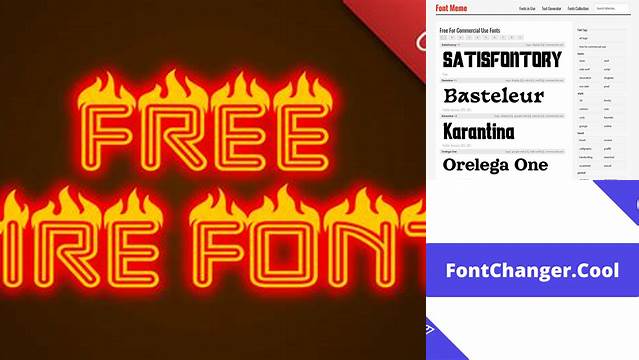
Online Font Changer For Free Fire: Cool Styles!
Hey guys! Want to make your Free Fire name stand out? Of course, you do! That's where online font changers for Free Fire come in super handy. They let you create all sorts of cool and unique styles for your in-game name, making you look like a total pro. Letβs dive into how you can jazz up your Free Fire profile with some awesome fonts!
What is an Online Font Changer?
An online font changer is basically a tool that allows you to convert regular text into a variety of different fonts and styles. These tools use special Unicode characters to create these unique looks, which can then be copied and pasted into various applications, including Free Fire. The best part? Most of these tools are super easy to use and require no special software or technical skills. Just type in your name, pick a font you like, and copy the result. Seriously, it's that simple!
Why Use a Font Changer for Free Fire?
Standing Out from the Crowd
In a game like Free Fire, where everyone is trying to make a name for themselves, having a unique username can really help you stand out. Using a font changer lets you create a name that is visually appealing and memorable. Think about it: when you eliminate an opponent with a funky font, they're more likely to remember you!
Personalizing Your Profile
Online font changers for Free Fire aren't just about looking cool; they're also about expressing your personality. By choosing a font that resonates with you, you can add a personal touch to your in-game profile. Whether you prefer something bold and aggressive or something sleek and stylish, the options are endless.
Creating a Unique Identity
Your Free Fire name is a part of your identity in the game. It's how other players recognize you, and it's how you build your reputation. Using a font changer gives you the opportunity to craft a unique identity that sets you apart from the competition. Who knows, maybe you'll even become known as the player with the coolest name!
How to Use an Online Font Changer for Free Fire
Step-by-Step Guide
Using an online font changer for Free Fire is a breeze. Hereβs a step-by-step guide to get you started:
- Find a Reliable Font Changer: There are tons of font changer websites out there. Just do a quick search on Google for "Free Fire font changer" and pick one that looks trustworthy and easy to use.
- Type Your Name: Once you're on the website, you'll see a text box where you can type your desired Free Fire name.
- Choose Your Font: The website will then generate a bunch of different font options for your name. Scroll through the options and pick the one that you like the best.
- Copy and Paste: Once you've found the perfect font, simply copy the text.
- Paste into Free Fire: Open Free Fire, go to your profile settings, and paste the new font into your name field. Save the changes, and boom! You've got a brand-new, stylish name.
- Consider Readability: While it's tempting to go for the most outrageous font, make sure it's still easy to read. If other players can't figure out your name, what's the point?
- Think About Your Style: Choose a font that reflects your personality and play style. Are you a fierce warrior or a cool strategist? Pick a font that matches.
- Test It Out: Before you commit to a font, try it out in a practice match to see how it looks in the game. Sometimes a font that looks great on the website doesn't translate well in the game.
Best Online Font Changers for Free Fire
List of Recommended Tools
Here are a few popular online font changers for Free Fire that you might want to check out:
- Fancy Text Generator: This tool offers a wide variety of fonts and styles, from simple to extravagant.
- Cool Text Generator: Another great option with a user-friendly interface and plenty of font choices.
- Lingojam: This site is super versatile and offers not just fonts, but also symbols and other cool characters you can add to your name.
Features and Benefits of Each Tool
Each of these tools has its own unique features and benefits. For example, Fancy Text Generator is known for its extensive font library, while Cool Text Generator is praised for its simplicity and ease of use. Lingojam, on the other hand, stands out with its ability to incorporate symbols and other special characters into your name.
Common Issues and How to Fix Them
Font Not Displaying Correctly
Sometimes, the font you choose may not display correctly in Free Fire. This can happen if the game doesn't support certain Unicode characters. If this happens, try a different font or a different font changer.
Name Change Not Saving
If you're having trouble saving your new name, make sure you have enough diamonds. Changing your name in Free Fire costs diamonds, so you'll need to have enough in your account to make the change.
Compatibility Issues
Some font changers may not be compatible with all devices or operating systems. If you're having trouble using a particular font changer, try a different one or try using it on a different device.
Interactive Fonts
Interactive fonts are fonts that can respond to user input. These fonts could be used to create dynamic and engaging gaming experiences.